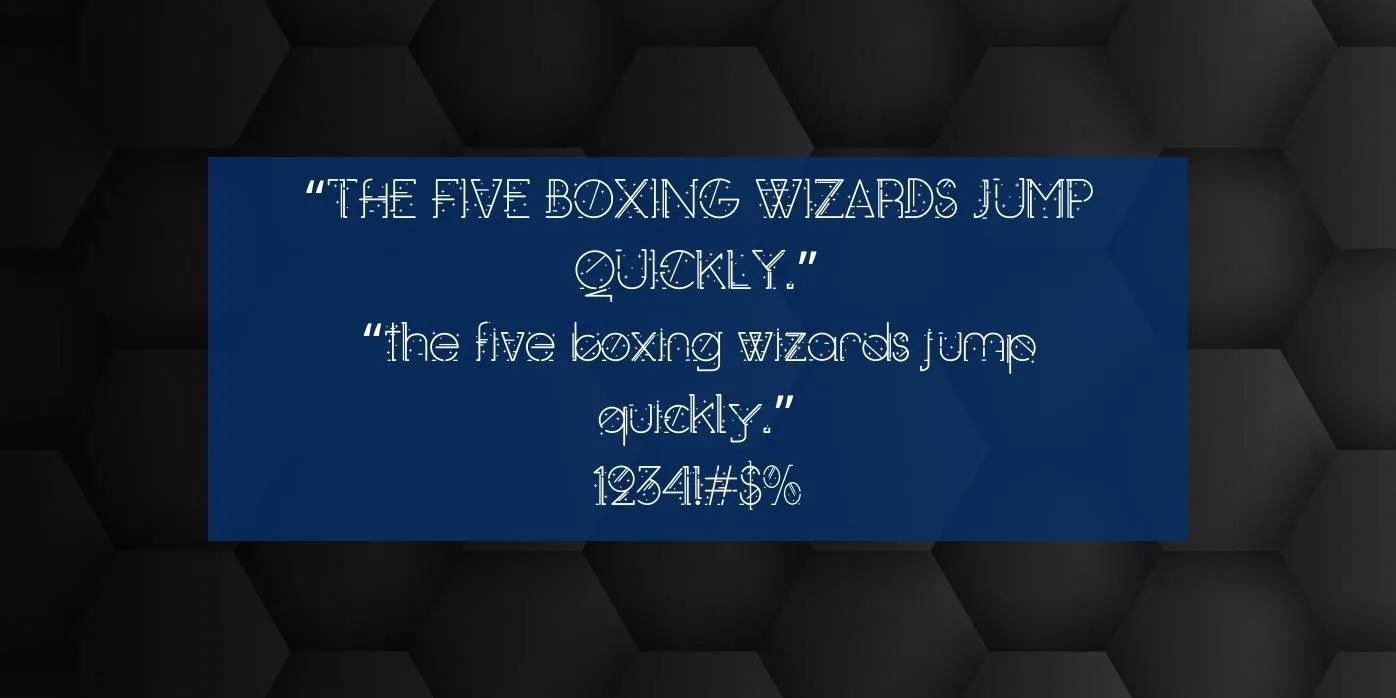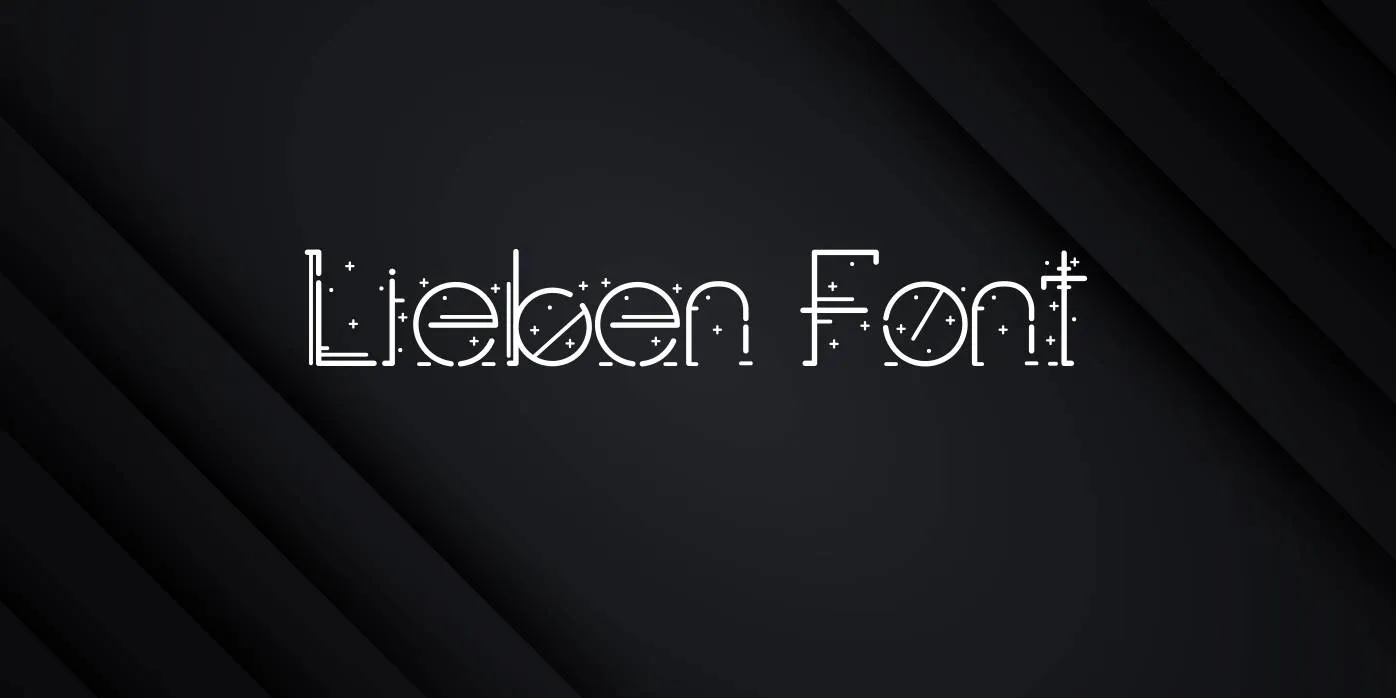
Lieben Font
Here, we present a stylish typeface known by the name Lieben Font. This awesome family belongs to the fancy font family.  And it is suitable for various purposes. This font family was released on 12th December 2018 by Yai Salinas. This great family contains a total of 8 fonts including 4 unique styles.  It is well specified for the CSS.
All of these fonts support multiple languages. And they also contain a large number of characters. This stylish typeface has an elegant and modern look. And it can be used for various projects.
Such as branding, advertising, headlines, posters, etc. Its copy and paste function is best for many plans and projects. For more classic features, you will have to use its alternative donut font which has the same features. So, if you are looking for a fancy font for your next project then this Lieben Font family can be a great option for you.